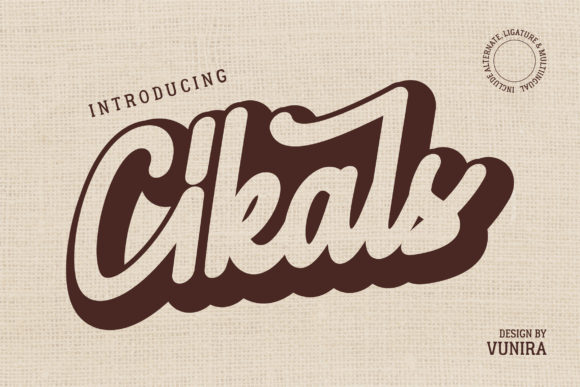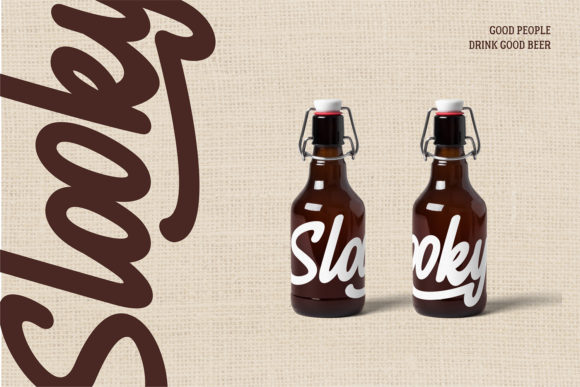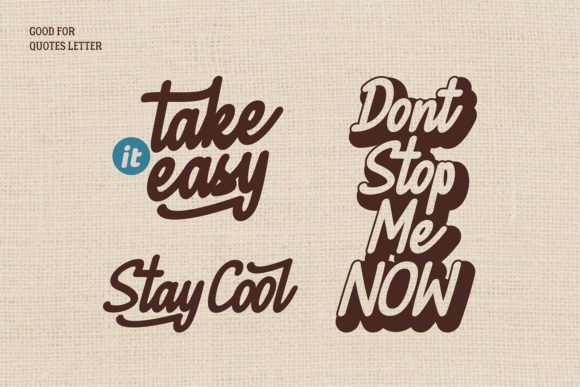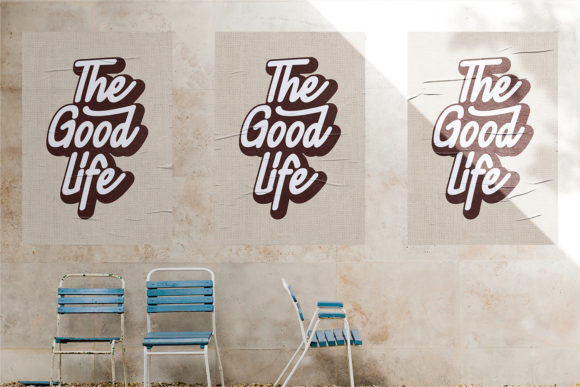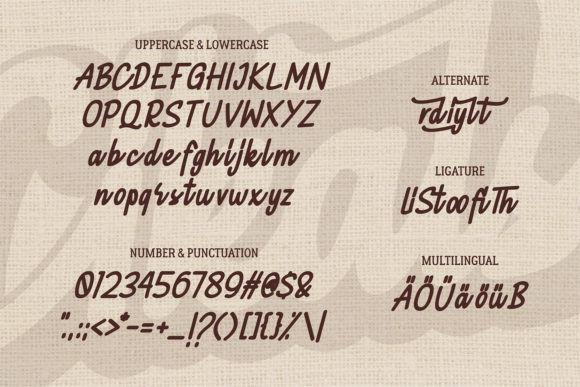
Cikals Font
About Cikals Font
Cikals: Embrace the Flowing Handwritten Elegance
Introducing Cikals, a flowing handwritten font that captivates with its elegant touch, making it the perfect choice for your favorite projects. Its distinct and timeless style will sweep you off your feet, empowering you to create truly spectacular designs. Whether you’re crafting enchanting wedding invitations, designing inspiring quotes, creating captivating logos, or any other project that demands sophistication—Cikals is the ideal companion. Fall in love with its graceful beauty and let it become the centerpiece of your creative endeavors.
The allure of Cikals lies in its flowing and elegant nature. Each letter is crafted with care, exuding a sense of grace and sophistication that captures the eye and leaves a lasting impression.
Designing with Cikals is a delightful experience. Its smooth lines and elegant style bring authenticity and allure to your creations, making them truly special and captivating.
Fall in love with the versatility of Cikals. Whether you’re designing for romantic celebrations, inspiring moments, or any occasion that requires an elegant touch, this font effortlessly adapts to suit your creative vision.
Unleash your creativity with Cikals. Its distinct and timeless style allows you to create designs that resonate with elegance, adding a touch of sophistication to your projects.
Gorgeous designs come to life with Cikals’ flowing and timeless style. Whether you’re crafting enchanting wedding invitations or designing inspiring quotes, this font adds a touch of refinement that mesmerizes your audience.
In conclusion, Cikals is more than just a font; it’s an elegantly flowing masterpiece that invites you to embrace the allure of handwritten elegance. Embrace its graceful charm, and let it become the heart of your most cherished projects. Whether you’re celebrating love, expressing creativity, or engaging in any creative endeavor, Cikals will be your trusted companion, adding a touch of elegance and sophistication. Allow this font to unlock the full potential of your creativity, and watch as your designs come alive with the flowing and timeless spirit of Cikals. Fall in love with its distinct allure, and let it guide you to create truly spectacular designs that leave a lasting impact on all who behold them.